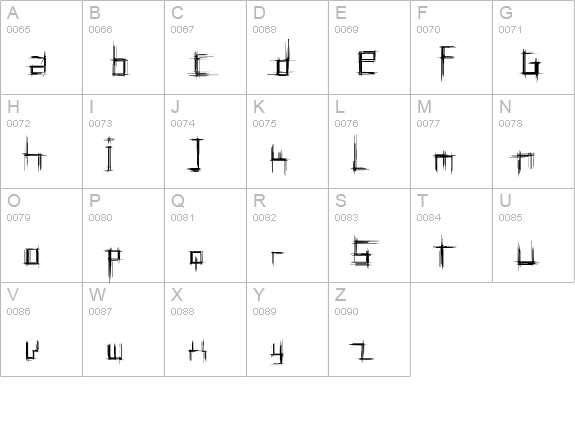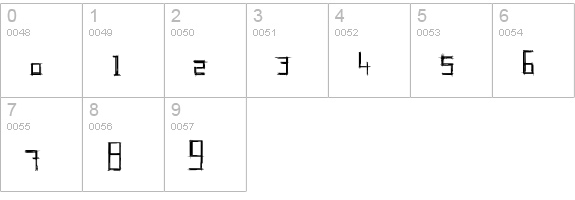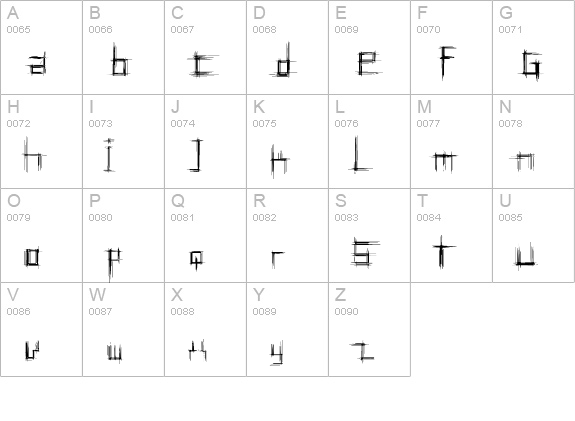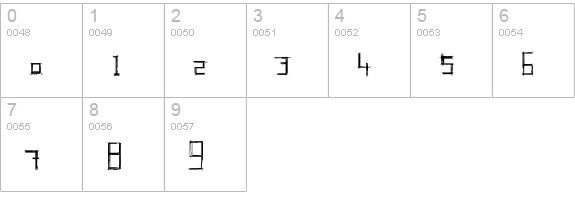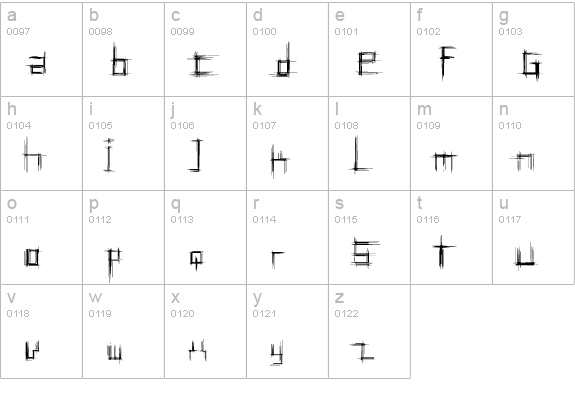
Bruised Five Font Details
Bruised Five font is a unique and artistic typeface that adds a touch of edginess to any design project. With its rugged appearance and distressed look, this font exudes a sense of character and authenticity. The uneven strokes and jagged edges give Bruised Five font a raw and handcrafted feel, perfect for conveying a sense of individuality and personality in your designs. Best of all, Bruised Five font is completely free to use! You can download this striking font for free at FontsMarket.com and start incorporating its bold style into your projects today. Whether you're working on a poster, logo, or any other design, Bruised Five font is sure to make a statement and leave a lasting impression. Let your creativity shine with this eye-catching and freely available font!